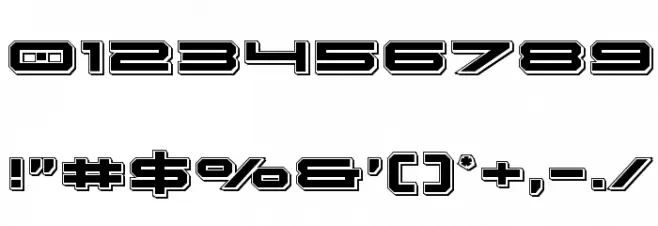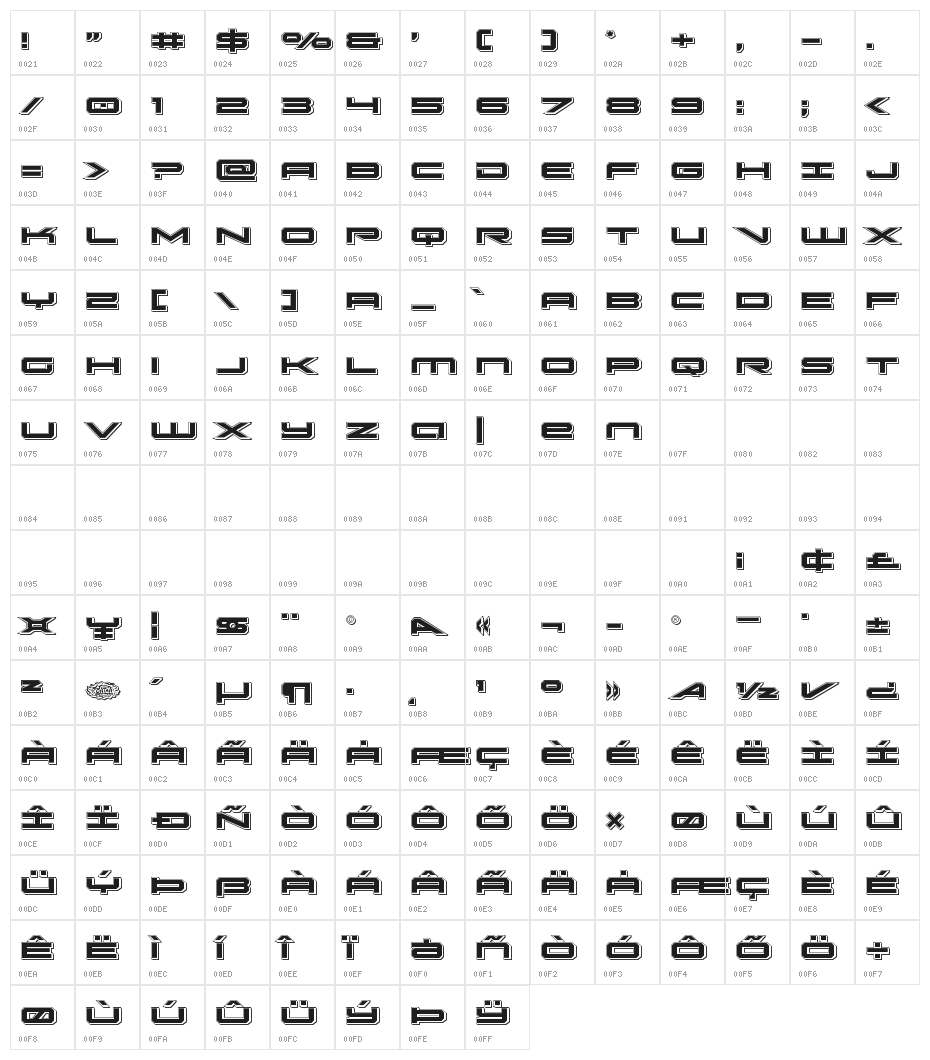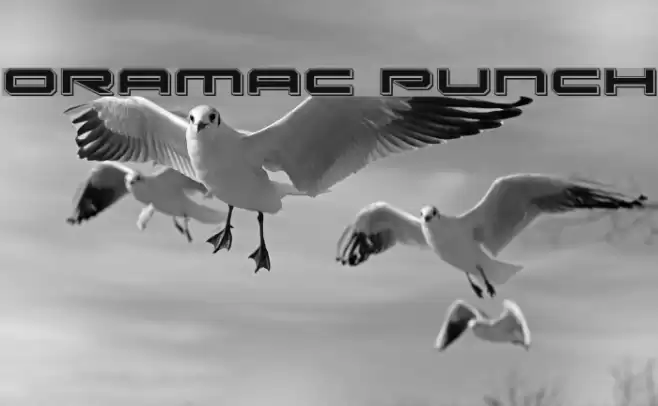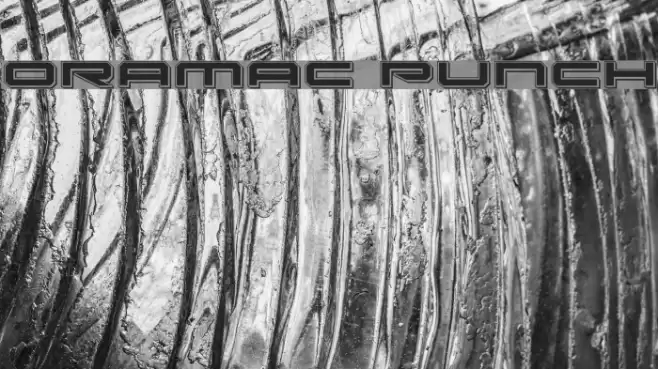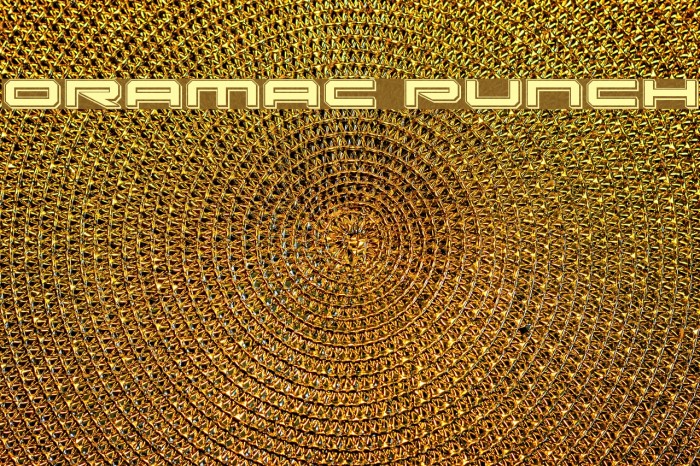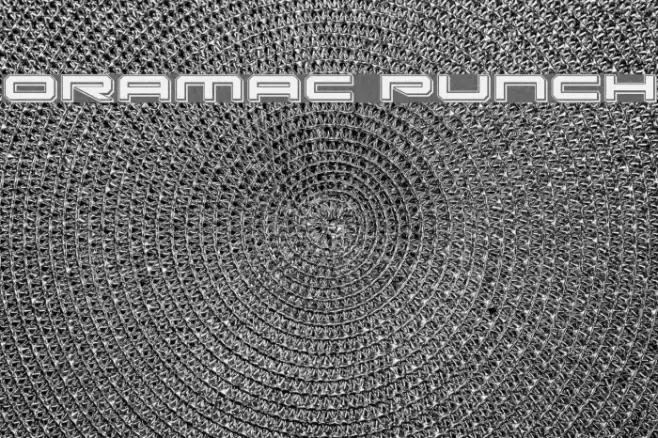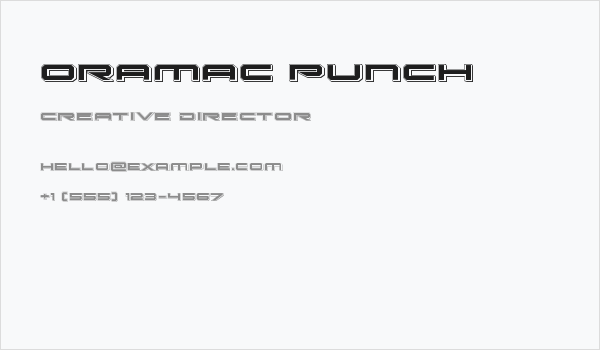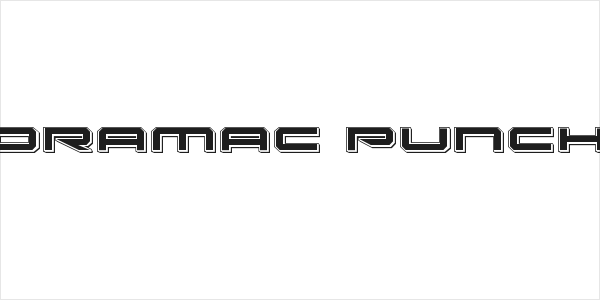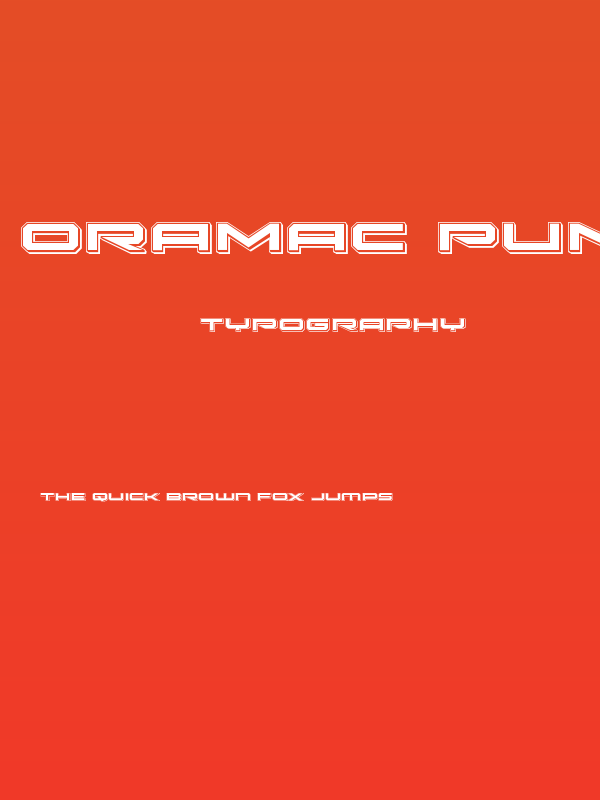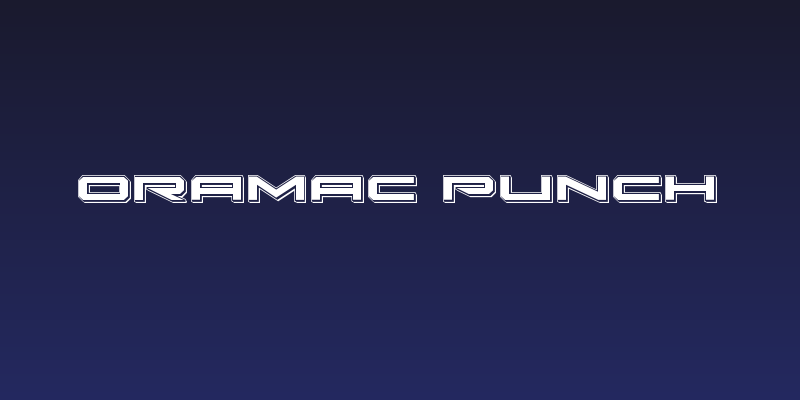
Oramac Punch Font
Oramac Punch Description
This font features a bold, futuristic design with a strong geometric structure. The characters are outlined with a double-layer effect, creating a sense of depth and dimension. The uppercase and lowercase letters maintain a consistent style, with sharp angles and clean lines that give a modern, tech-inspired look. The numerals and special characters follow the same aesthetic, ensuring uniformity across all glyphs. The overall appearance is striking and attention-grabbing, making it suitable for projects that require a bold statement.
| Proposed Projects | Ideal for technology branding, video game titles, sci-fi posters, and digital media. |